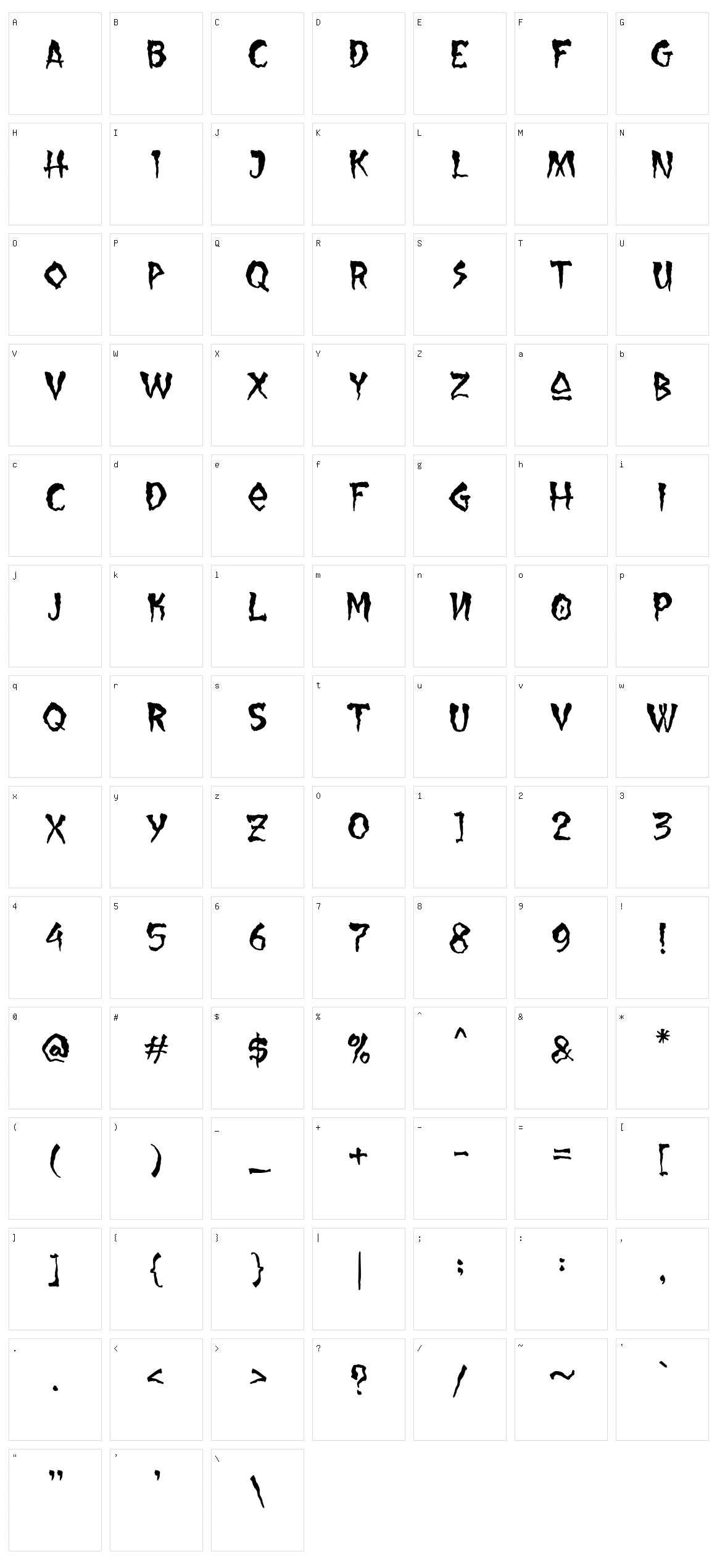
The free font Allarmante is carefully designed by Letterhend Studio, showcasing a thoughtful balance of creativity and usability and falls under the Horror font style. When you download the ZIP file, it contains only 415.3 KB of font files, making it lightweight and quick to download. Please review the license details below to understand permitted usage and distribution rights. If license information is not available, we recommend using this font for personal projects only or contacting the author directly for commercial usage permissions.